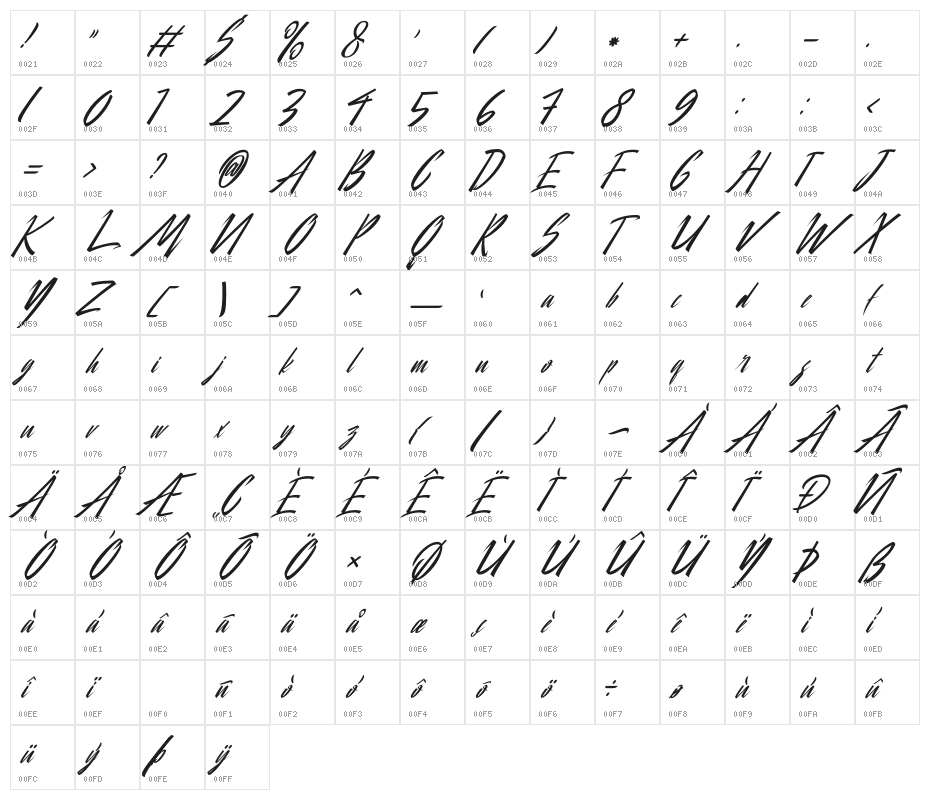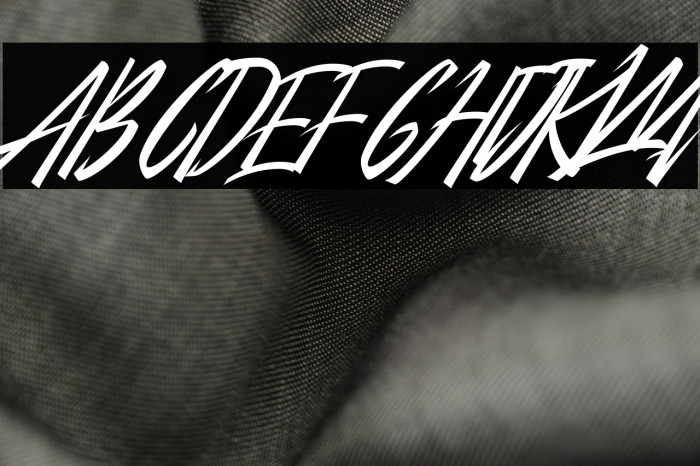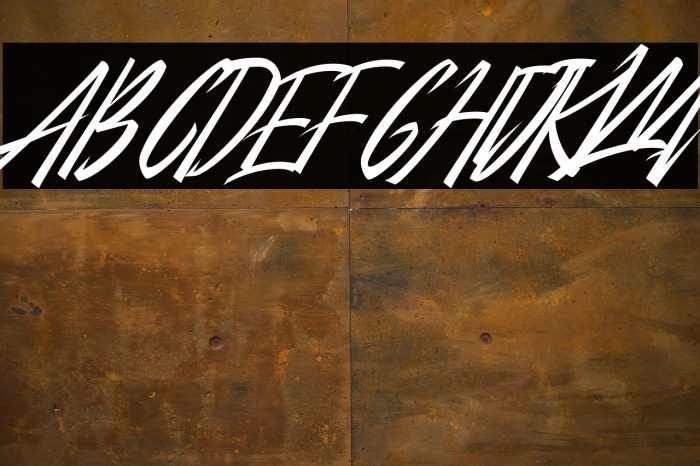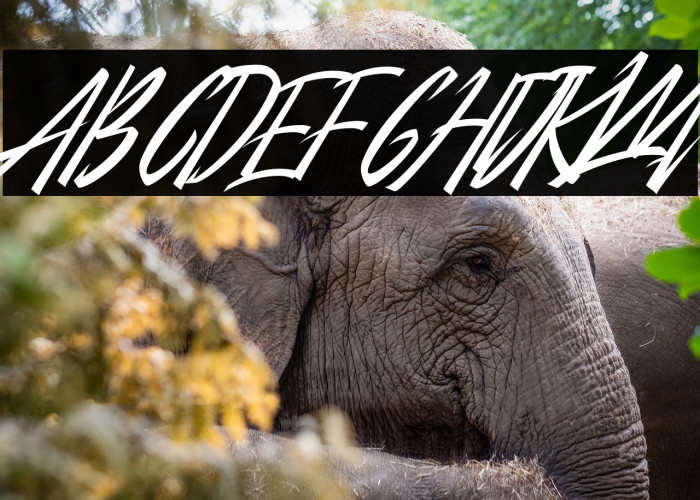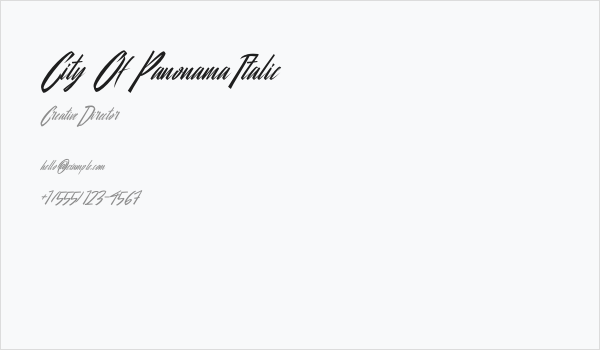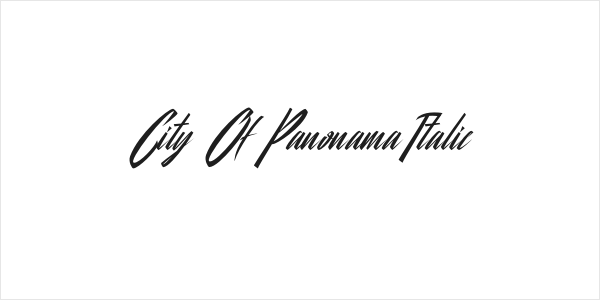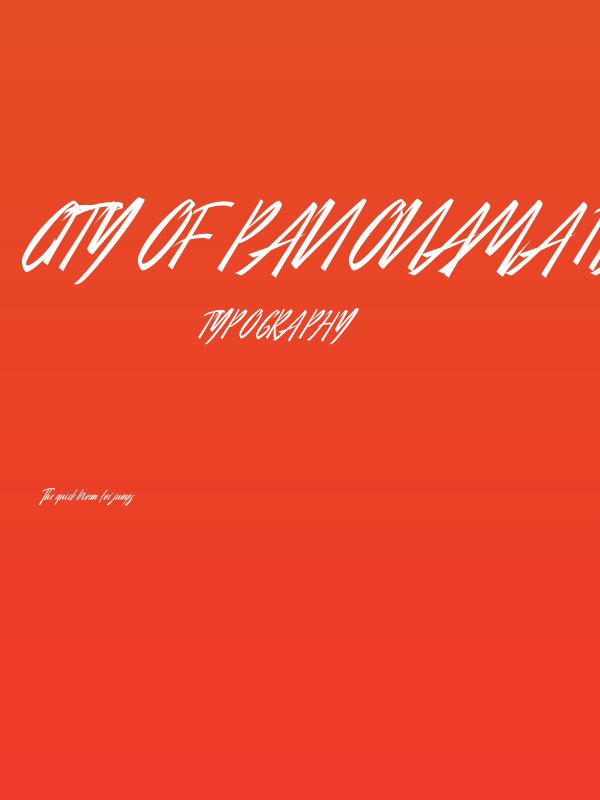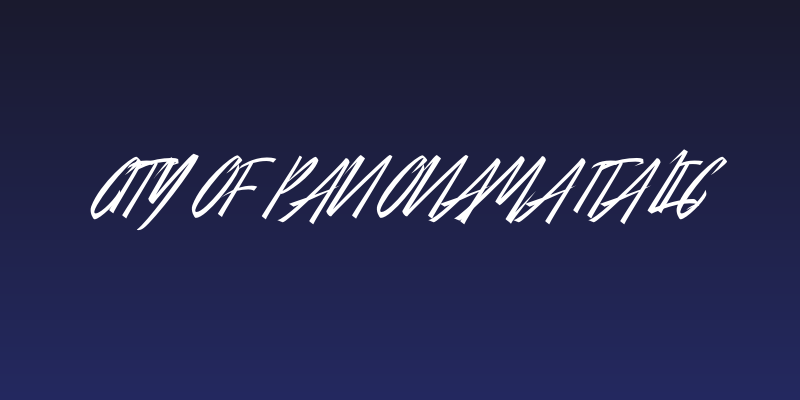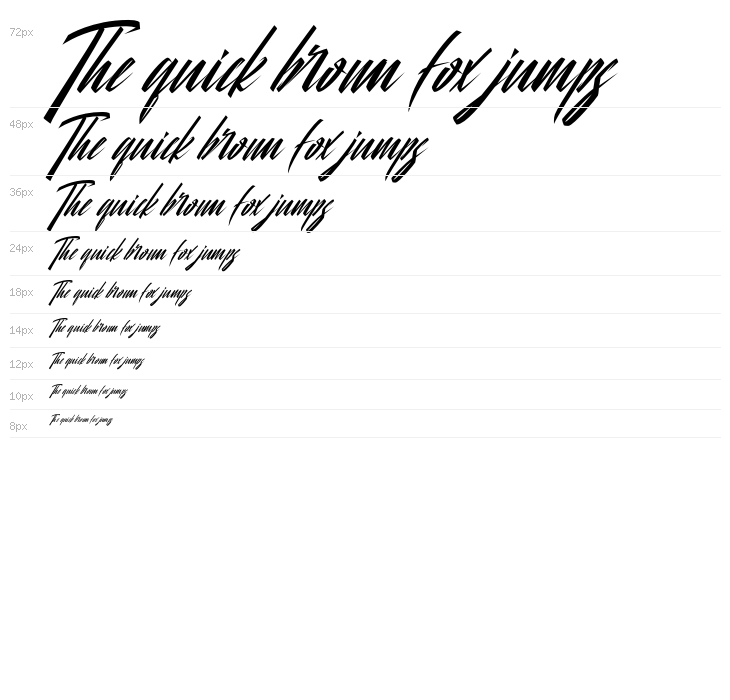
City Of Panonama Italic Font
City Of Panonama Italic Description
| Overall Style | Decorative, Modern, Expressive |
| Use Case | Logos, Headlines, Posters, Artistic projects |
| Proposed Projects | Street art posters, music album covers, event branding, expressive logos, fashion editorials. |